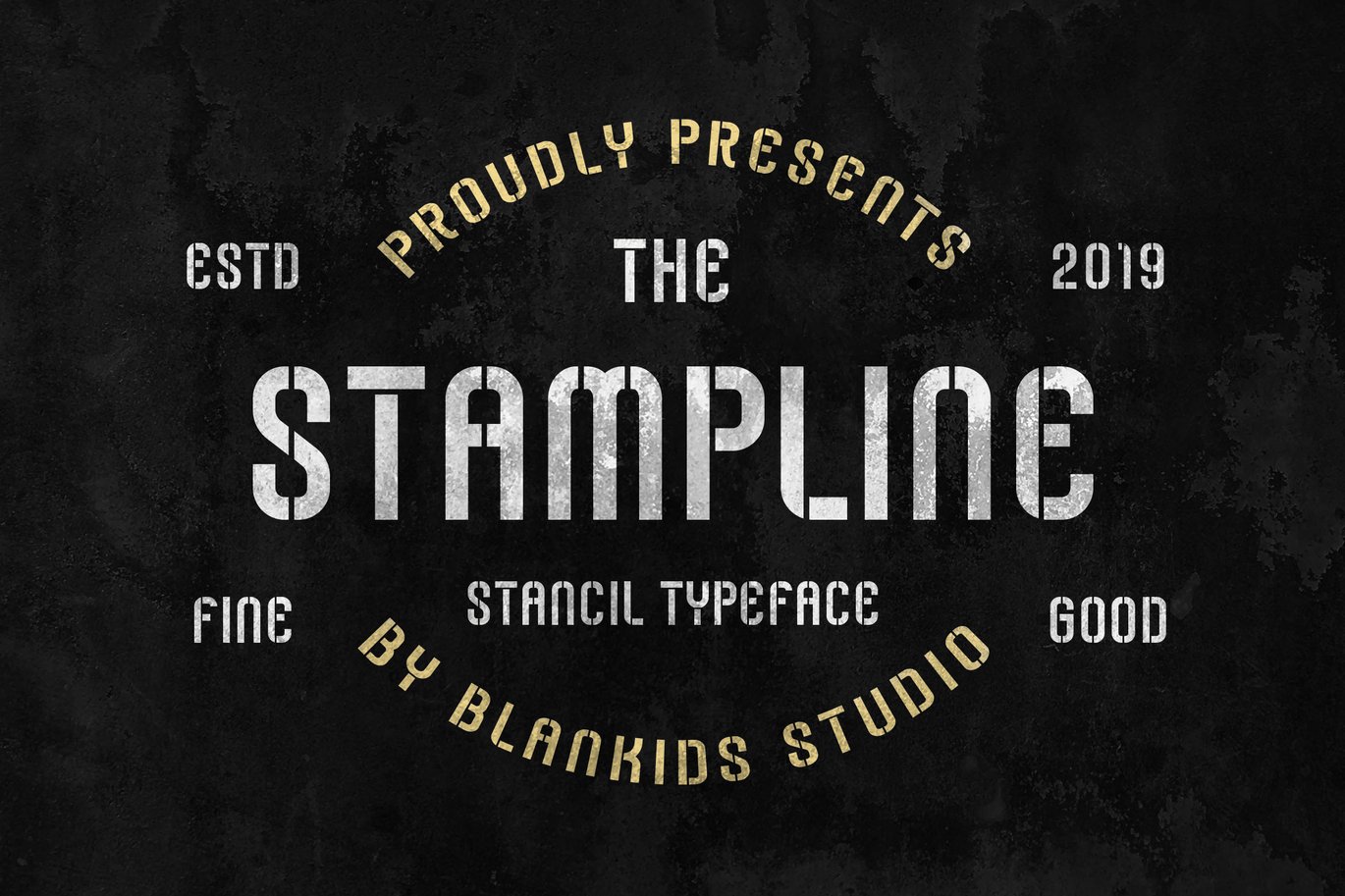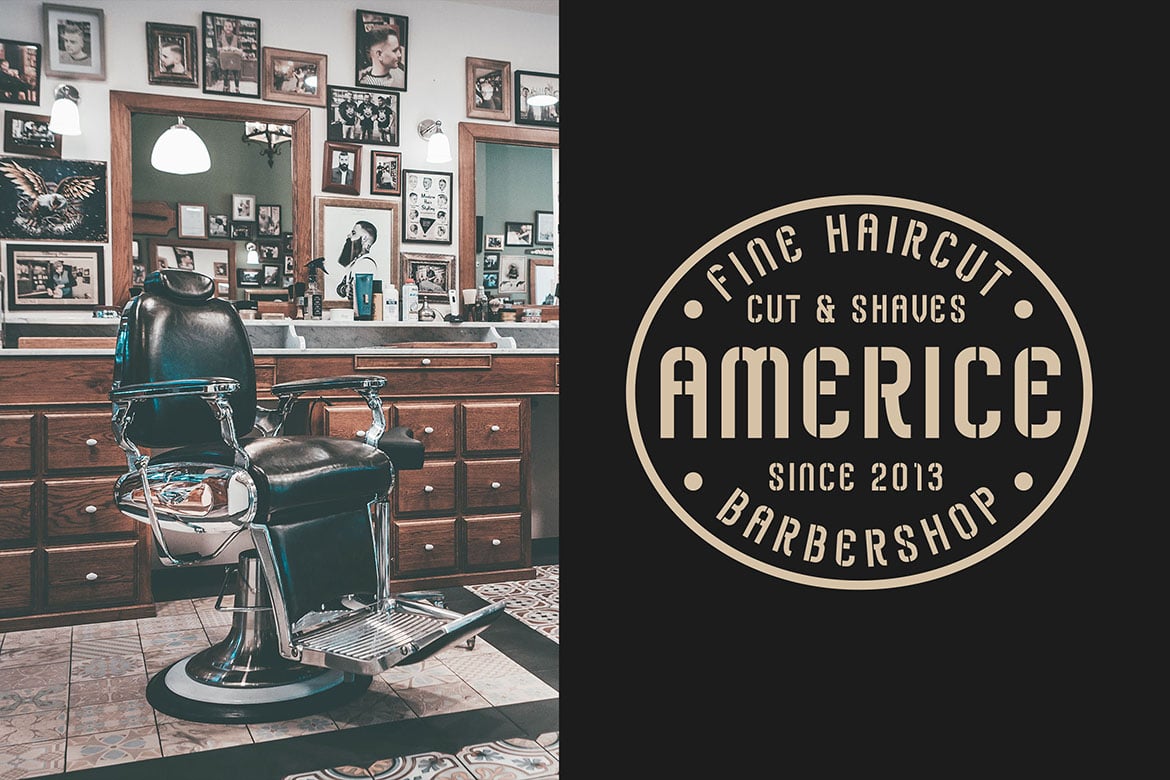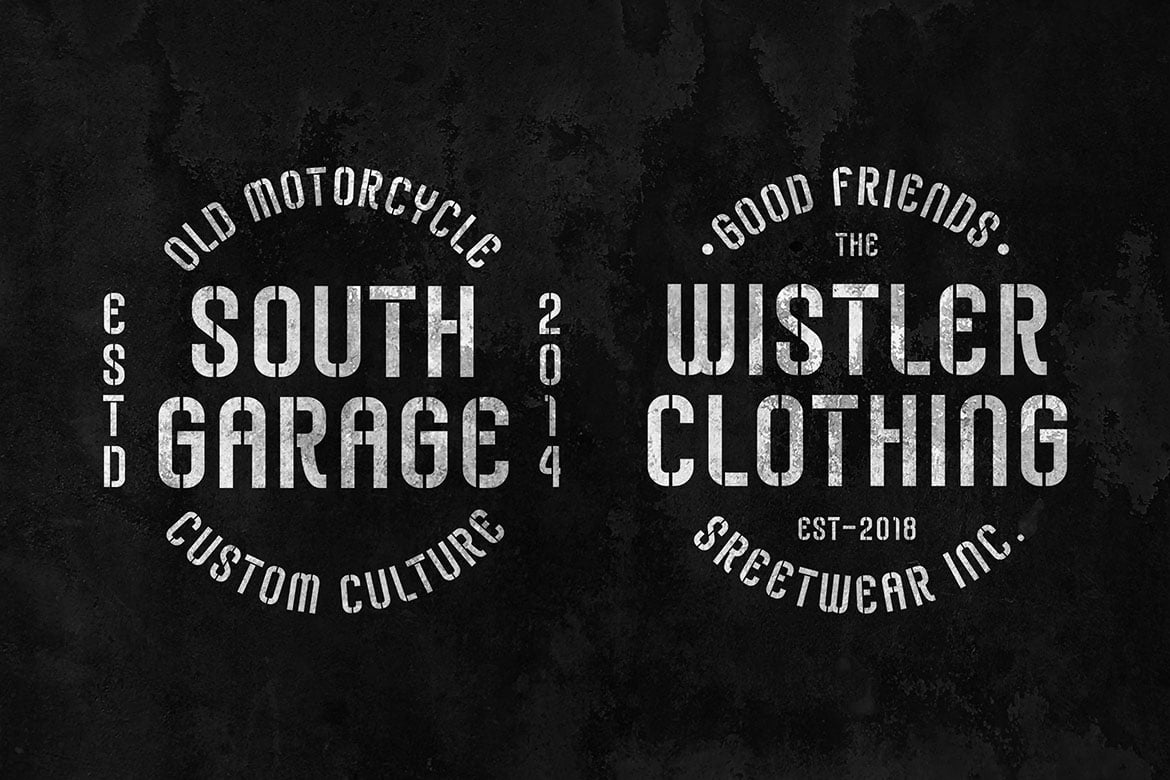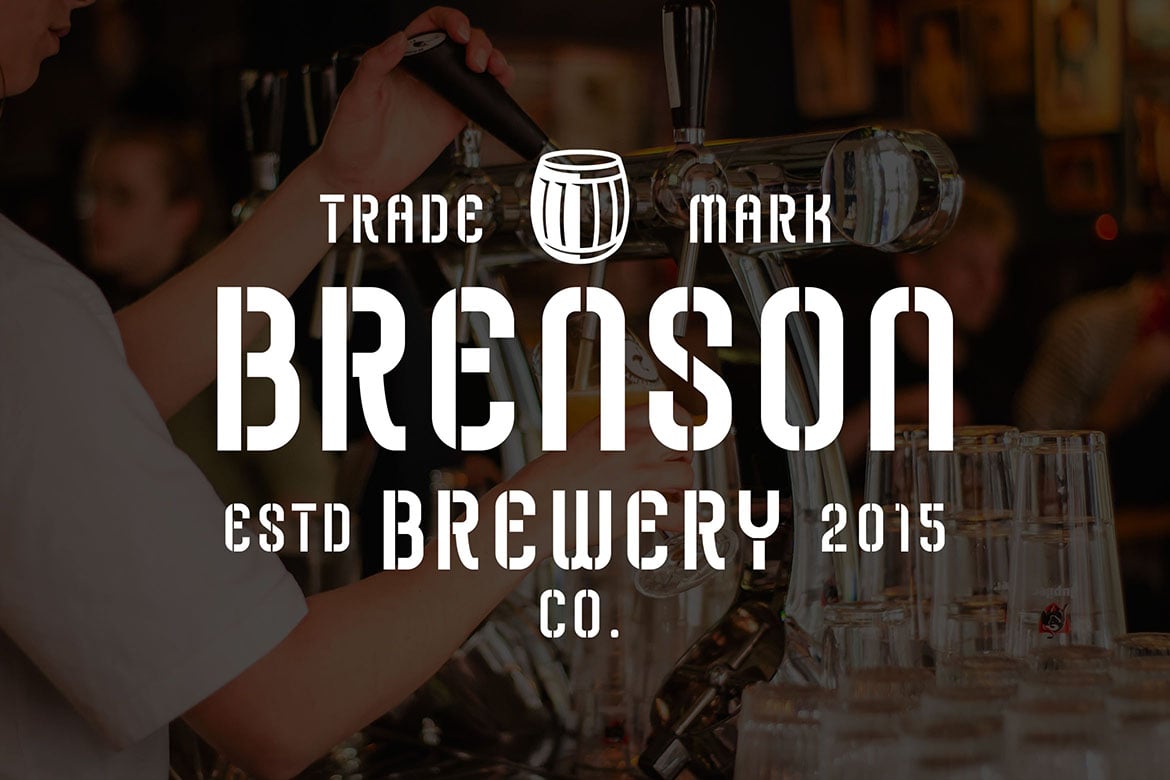
Stampline – Stencil Typeface
Introducing of our new product the name is Stampline stencil typeface. Stampline good for logotype, label, badge, headline, signature, packaging and any more.
MULTILINGUAL ACCENT :
- ŽžŠŒšŸÀÁÂÃÄÅÆÇÈÉÊËÌÍÎÏÐÑÒÓÔÕÖØÙÚÛÜÝßàáâãäåæçèéêëìíîïñòóôõöøùúûüýÿ